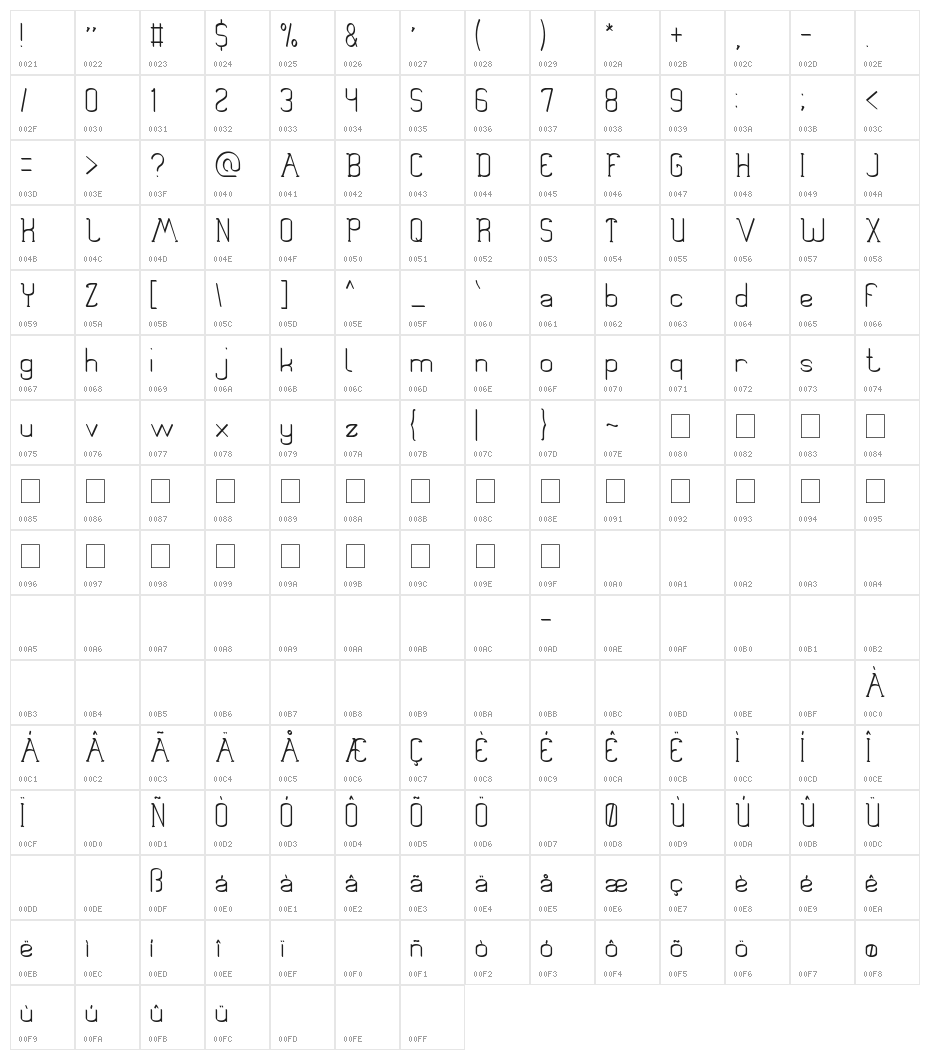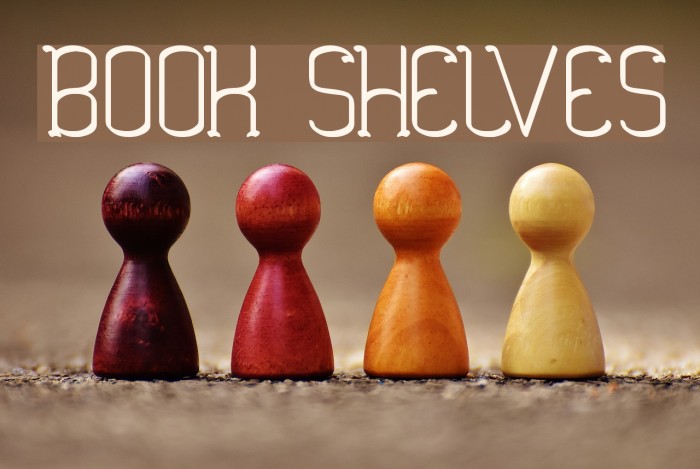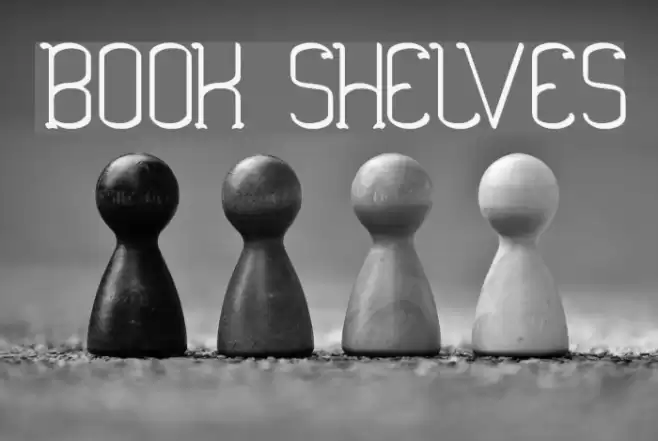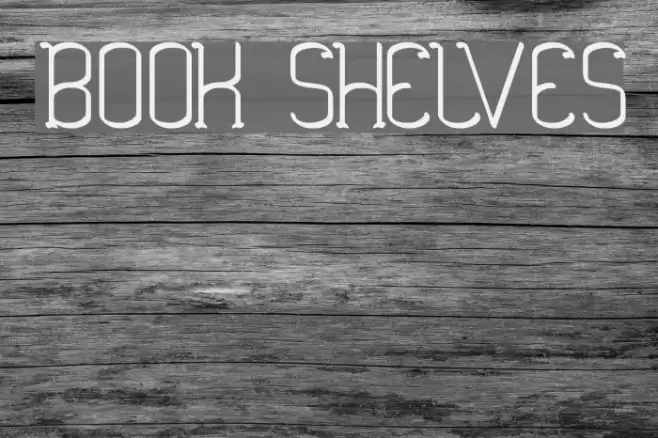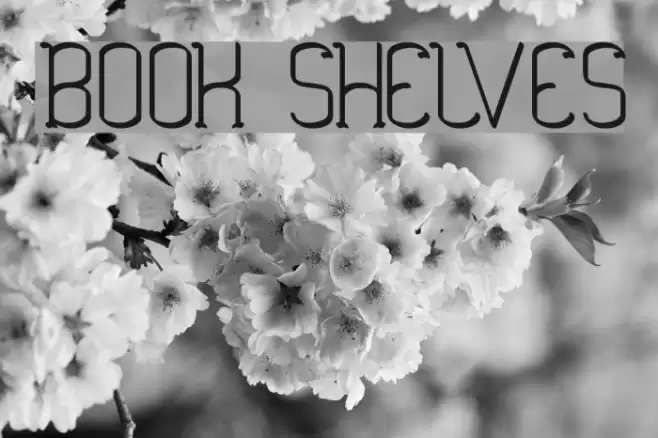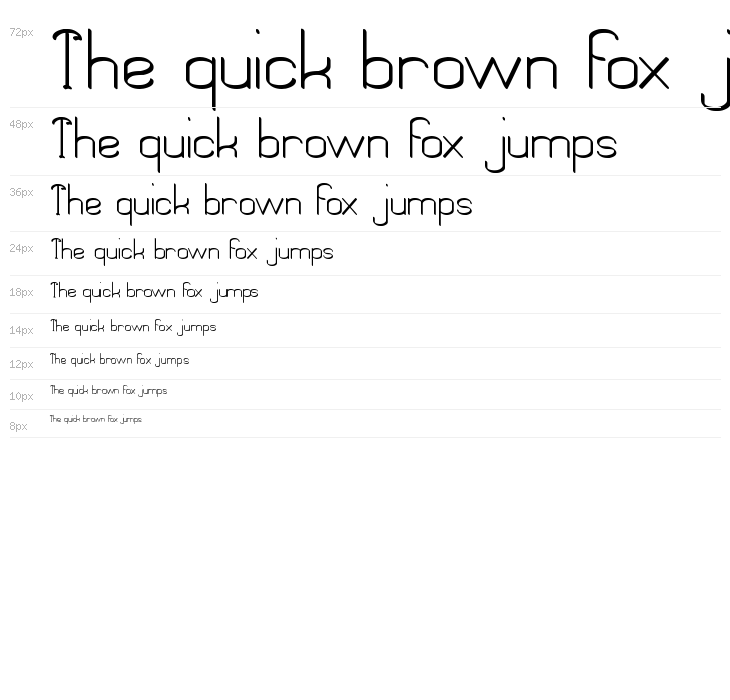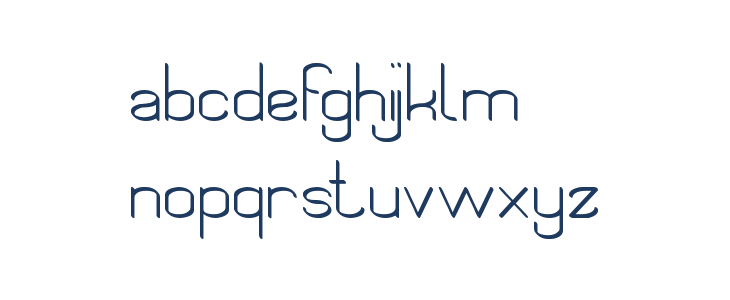
BOOK SHELVES Font
BOOK SHELVES Description
This font features a unique blend of modern and vintage elements, characterized by its elongated and slightly curved strokes. The uppercase letters are tall and narrow, with a distinct geometric influence that adds a contemporary touch. The lowercase letters maintain a consistent height, providing a harmonious balance between the characters. The numerals are designed with a similar aesthetic, ensuring uniformity across the font. Special characters are crafted with precision, maintaining the overall style. This font's clean lines and subtle curves make it versatile for various design applications.